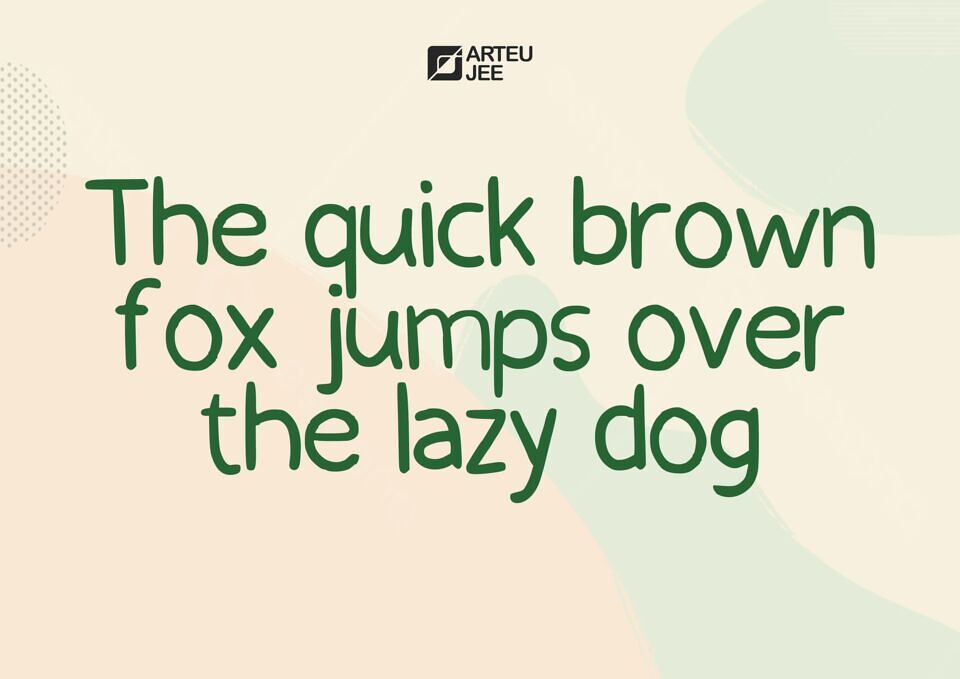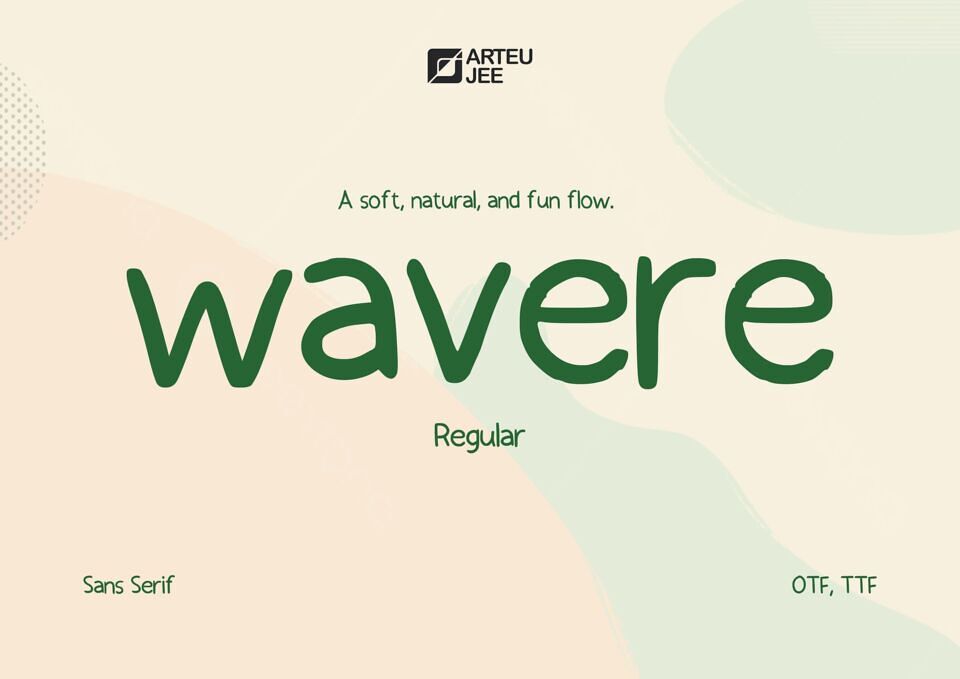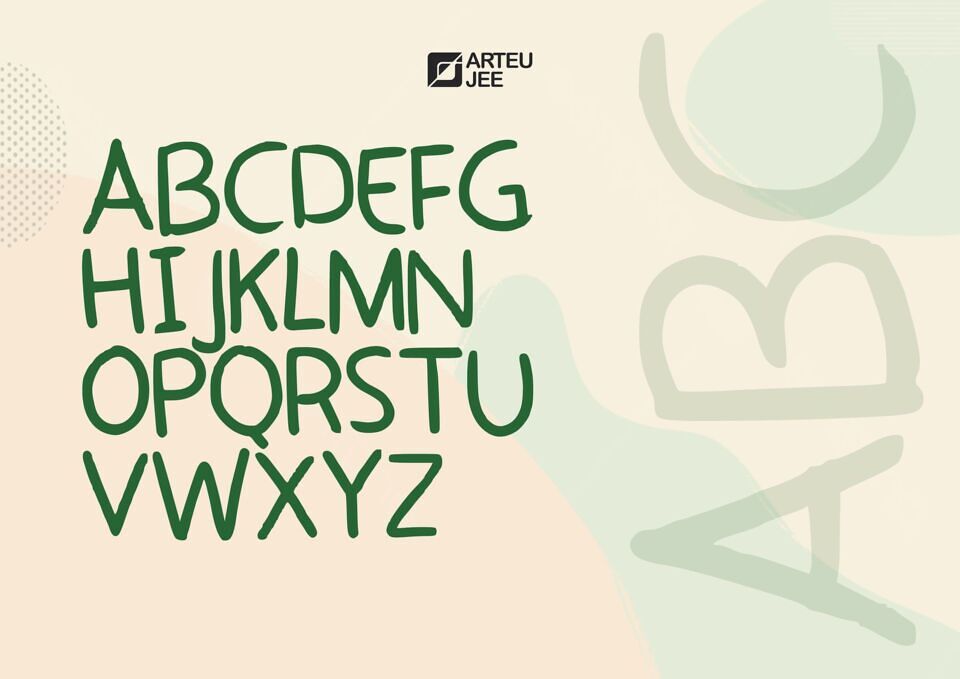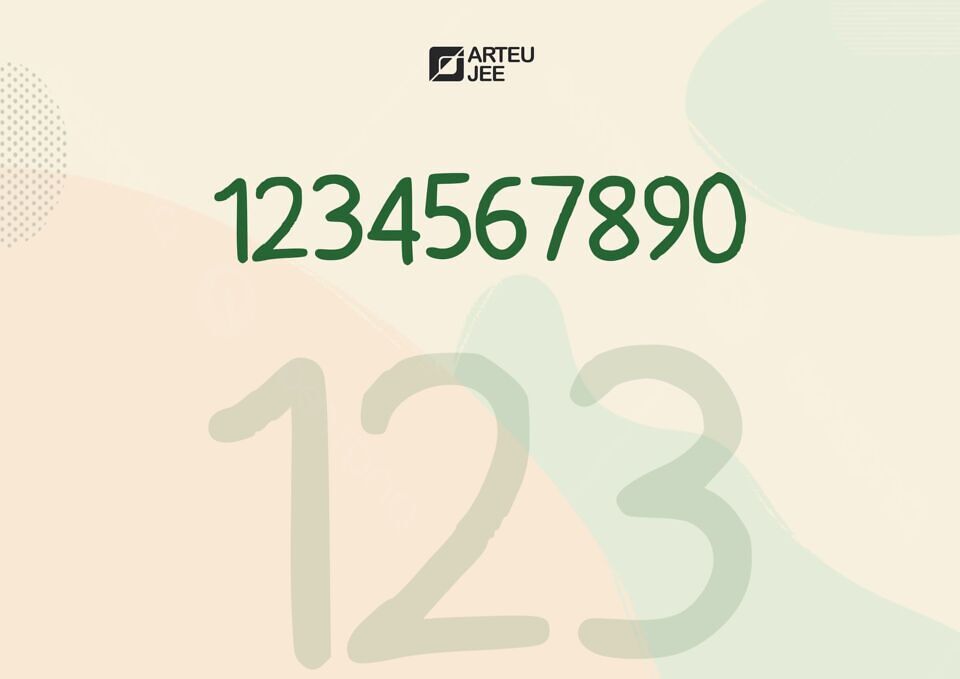
Wavere is a playful, handwritten typeface with a casual, organic charm, perfect for creative projects. Its smooth, flowing green letterforms, set against a soft pastel background, exude a friendly and approachable vibe.
Designed with a slightly irregular, hand-drawn style, it adds a personal touch to designs, making it ideal for invitations, posters, or social media graphics. Supporting the full English alphabet, numbers, and punctuation, Wavere offers versatility while maintaining readability.
This font captures the spontaneity of handwriting, bringing warmth and character to any project with its whimsical, laid-back aesthetic.